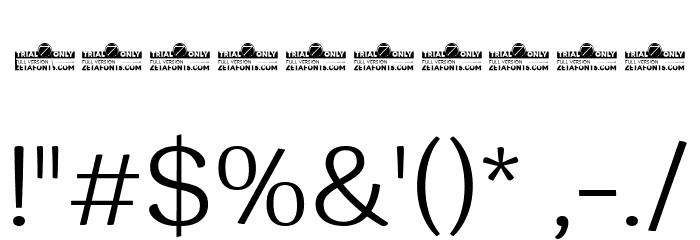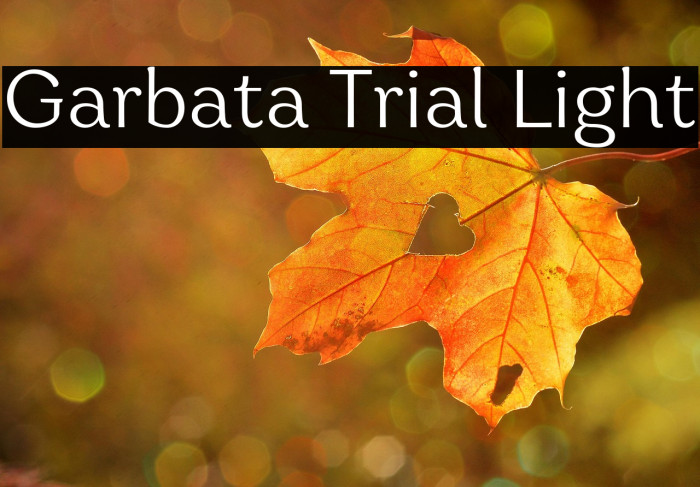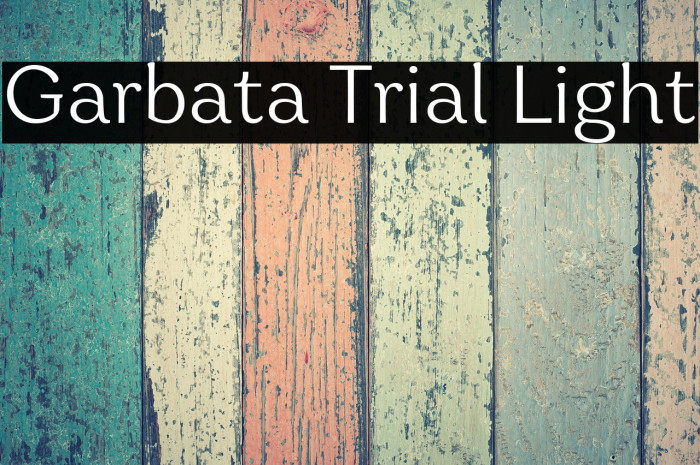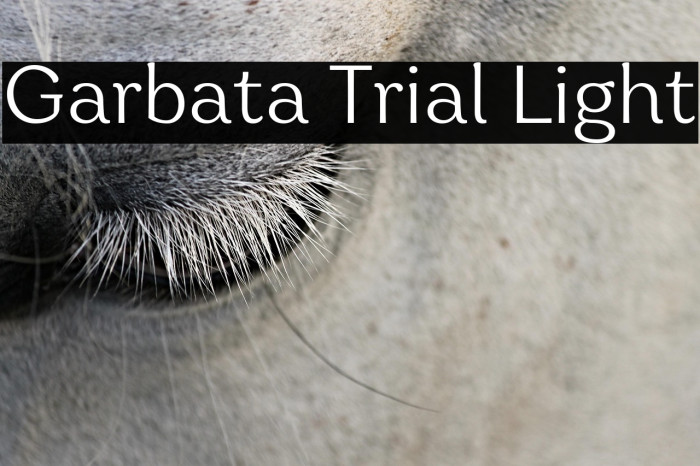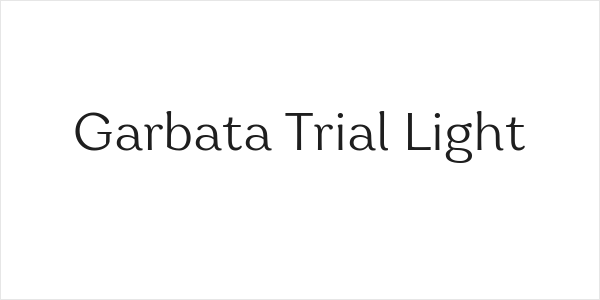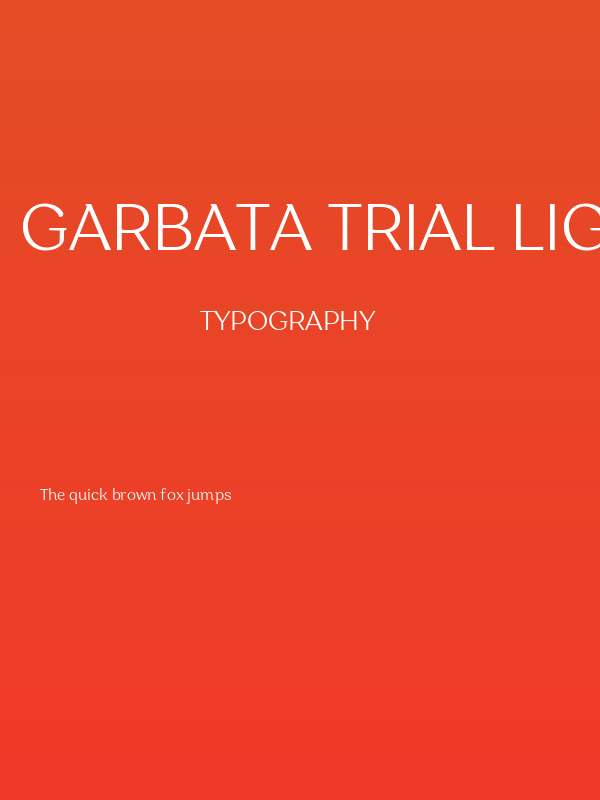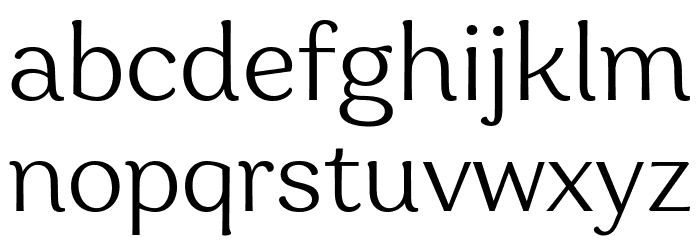
Garbata Trial Light Font
Garbata Trial Light Description
This font features a clean and modern design with a subtle elegance. The characters are well-proportioned, offering a harmonious balance between curves and straight lines. The uppercase letters are bold and confident, while the lowercase letters maintain a friendly and approachable appearance. The numerals are clear and legible, making them suitable for various applications. Special characters are distinct and well-integrated into the overall design, ensuring versatility. The font's light weight contributes to its airy and open feel, making it ideal for projects that require a touch of sophistication without overwhelming the viewer.
| Proposed Projects | Ideal for branding, editorial design, websites, and advertising materials. |